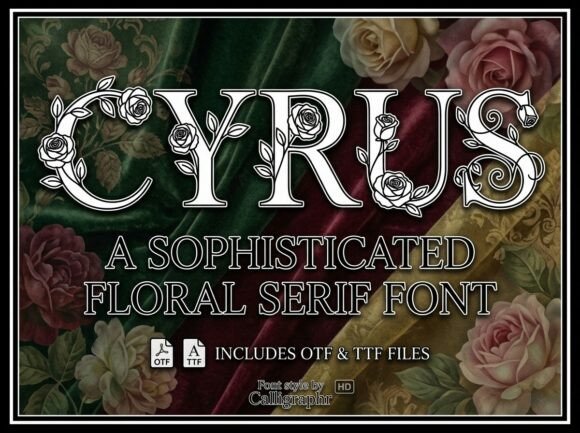
The Romance of Cyrus Font: Elevating Your Designs with Elegance
I still remember the design project that led me to discover Cyrus Font. I was working on a wedding stationery suite for a client who wanted a luxurious, high-end feel. As I scrolled through font after font, nothing seemed to capture the essence of romance and elegance I was looking for. That was until I stumbled upon Cyrus. Its unique blend of classic and botanical elements instantly won me over, and I knew I had found the perfect fit for my project.
An Honest Review of Cyrus Font
- ✨ Elegant, hollow letterforms that exude sophistication
- ✅ Unique, hand-drawn rose illustrations and delicate leaf sprouts that add a touch of romance
- 💐 The perfect balance of graphic weight and whimsy, making it suitable for a variety of design applications
- 🎨 The ability to add a personal, artistic touch to any project
While Cyrus Font is a stunning addition to any design, there are a few things to keep in mind:
- 🤔 The font’s intricate details can be challenging to read at smaller sizes, making it best suited for display or headline use
- ⚠️ Some users may find the font’s uniqueness overwhelming or difficult to pair with other fonts
The Designer Inspiration Behind Cyrus Font
Cyrus Font was inspired by the beauty of nature and the elegance of luxury design. Its creator, a talented type designer, sought to capture the essence of romance and sophistication in a unique and eye-catching way. The result is a font that is both classic and modern, perfect for designers looking to add a touch of elegance to their work.
Q: What is Cyrus Font best suited for?
A: Cyrus Font is perfect for independent luxury florist branding, wedding stationery, boutique beauty packaging, and high-impact social media headers.
Q: Is Cyrus Font easy to read?
A: While Cyrus Font is a beautiful and elegant font, its intricate details can make it challenging to read at smaller sizes. It’s best suited for display or headline use.